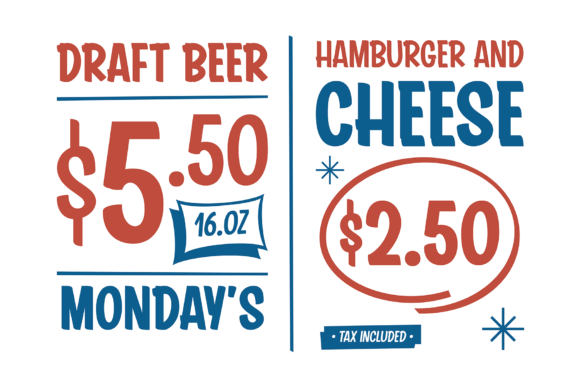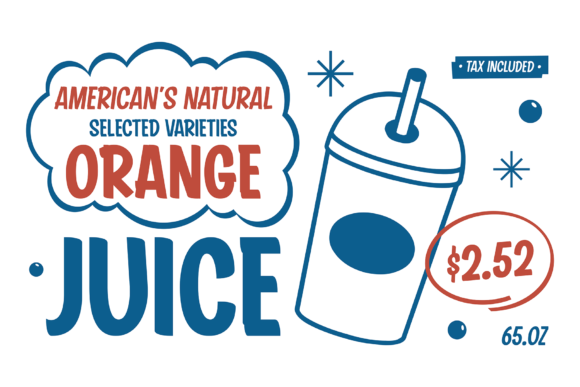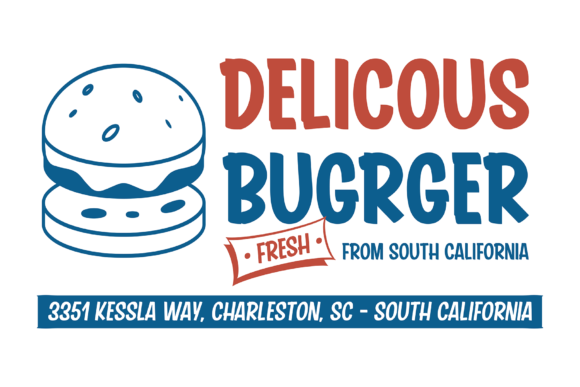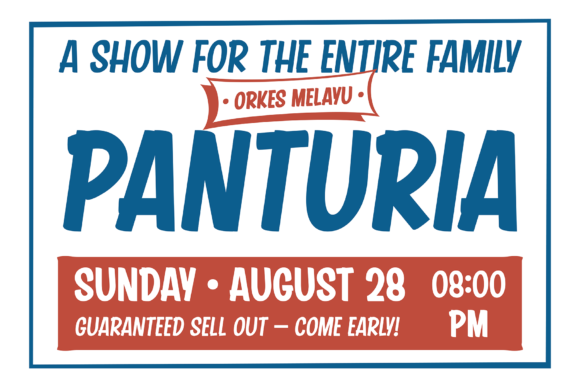
Discover the Perfect Blend of Cool and Creativity
You know that moment when the perfect font pops into your design, and everything just clicks? It’s like a spark of creativity ignites, and your project takes off in a whole new direction. For designers, finding that magic font can be a game-changer. That’s exactly what Brusch Casual Font aims to do – elevate your creations with its unique blend of cool and fun.
This adaptable display font is designed to be a versatile asset for any project, no matter the topic or style. Whether you’re working on a vibrant campaign or a sleek publication, Brusch Casual Font has the potential to take your design to the next level. With its versatility and charm, it’s no wonder this font has become a valuable addition to many designers’ libraries.
Brusch Casual Font Key Features
- Unique Characteristics: The font features a casual, handwritten style with subtle imperfections, giving it a unique and personalized feel.
Review of Brusch Casual Font
Overall, I think Brusch Casual Font is a solid addition to any designer’s toolkit, but it’s not without its quirks. Let’s dive in and see what it’s got going for it, and where it falls short.
- ✨ Friendly and approachable tone: Brusch Casual Font is perfect for branding and marketing materials where you want to convey a sense of warmth and approachability.
- ✨ Highly legible: This font is easy to read, even at smaller font sizes, making it ideal for body text and other long-form content.
- ✨ Versatile: Brusch Casual Font comes in a range of weights and styles, from light to bold, giving you a lot of flexibility in how you use it.
- ⚠️ Limited to display use: While Brusch Casual Font is great for body text, it’s not the best choice for headings or titles, where a more dramatic font might be more effective.
- ⚠️ Some awkward ligatures: In certain combinations, the ligatures can look a bit off, which may be distracting in some contexts.
Brusch Casual Font is a solid choice for designers who want a friendly, approachable font for branding and marketing materials. While it’s not perfect, its strengths outweigh its weaknesses, making it a great addition to any designer’s toolkit.
Brusch Casual Font is ideal for:
- Home decor and furniture design
- Health and wellness marketing
For the best results, use Brusch Casual Font with:
- A warm color scheme
- A minimalist design aesthetic
- High-quality images or graphics
Alternatives to Brusch Casual Font for Designers
Brusch Casual Font is a popular choice for designers due to its friendly and approachable nature. However, there are several alternatives that can offer unique characteristics and benefits. Here are a few options to consider:
Great Vibes is a beautiful, handwritten font that can add a touch of elegance to your designs. It’s perfect for use in invitations, posters, and other creative projects where a personal touch is desired. Compared to Brusch Casual Font, Great Vibes has a more refined and sophisticated look, making it ideal for high-end or luxury brands.
Pacifico is a stylish and modern script font that’s perfect for use in headings, titles, and other display text. It has a relaxed, beachy feel that’s ideal for summer-themed projects or brands that want to evoke a sense of calmness and tranquility. Unlike Brusch Casual Font, Pacifico has a more polished and refined look, making it suitable for a wide range of applications.